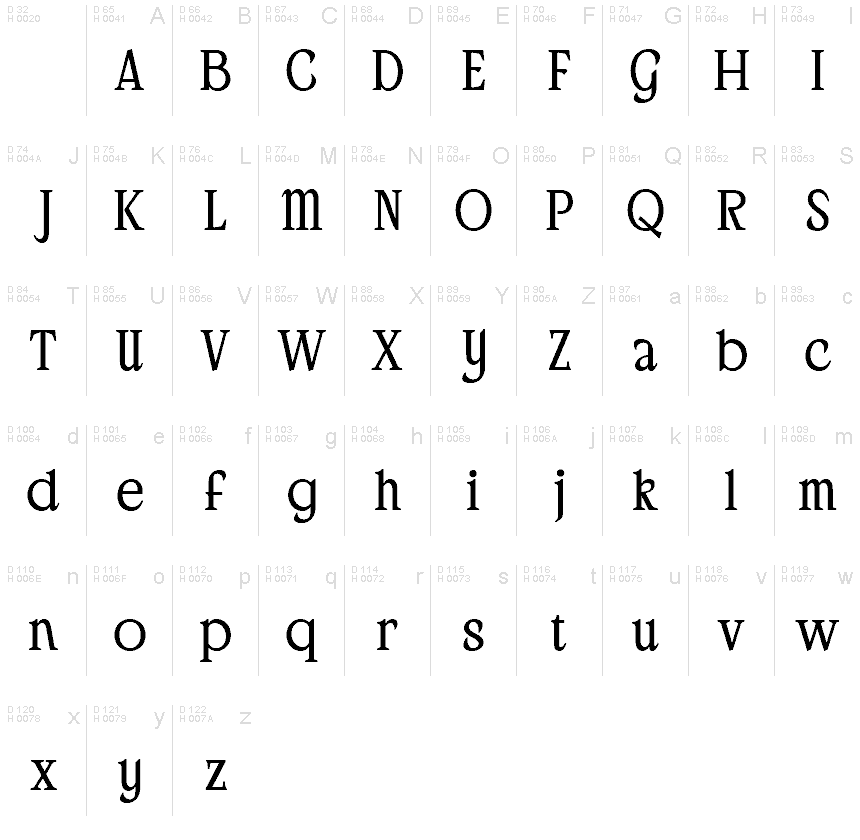
CS Gisele Regular Demo
CS Gisele font designed by Craft Supply Co. is an elegant classic influenced serif font with a refined look. The typeface adds a sophisticated look to any formal application with its smooth letterforms and sophisticated appearance.
Possible use-cases for this free serif font include logos, cosmetics, fashion magazines, menus for high-end restaurants, packaging design, wedding invitations, and museum identity design. Use it in posters and business cards related to law or educational fields as well.